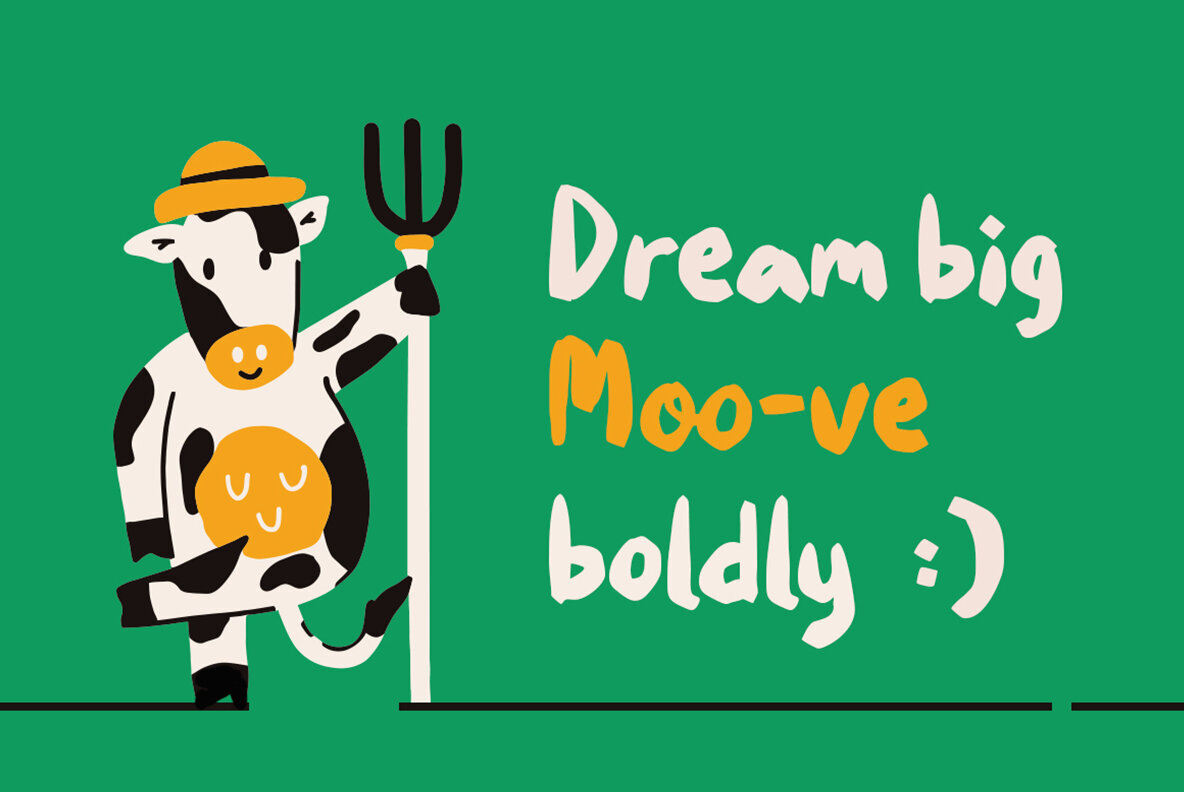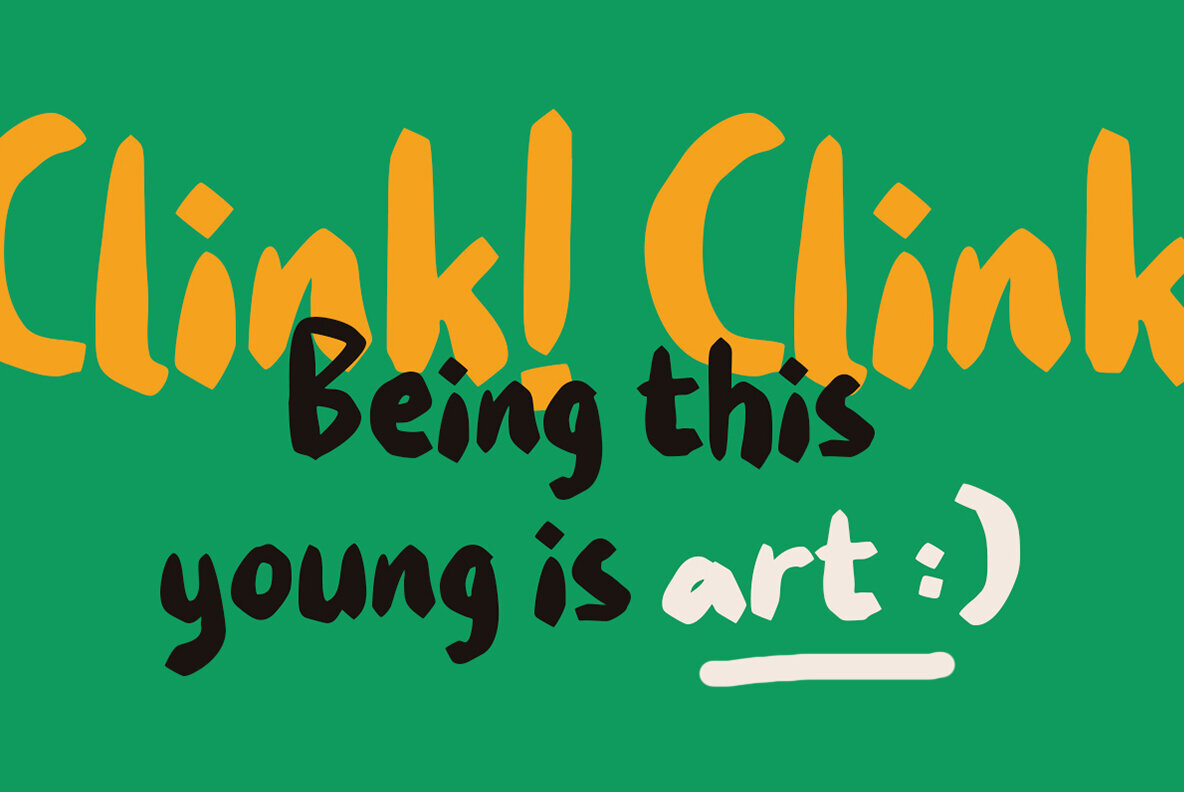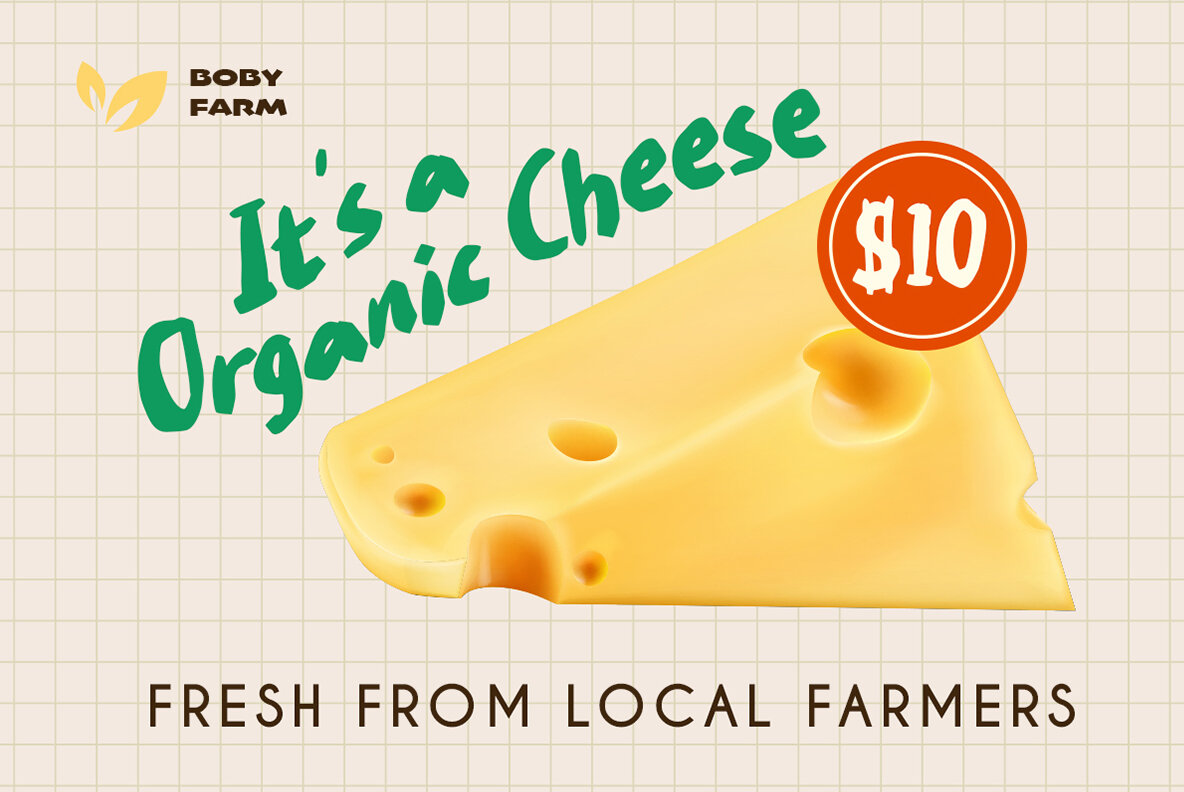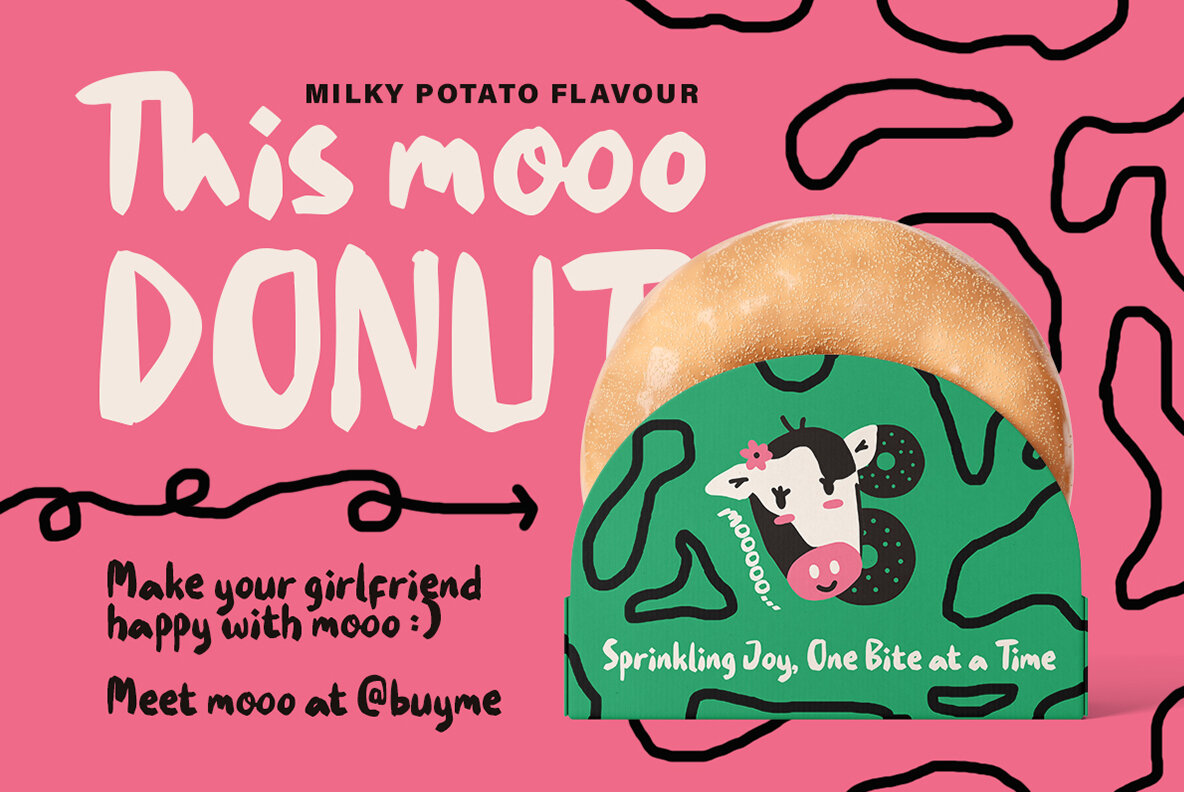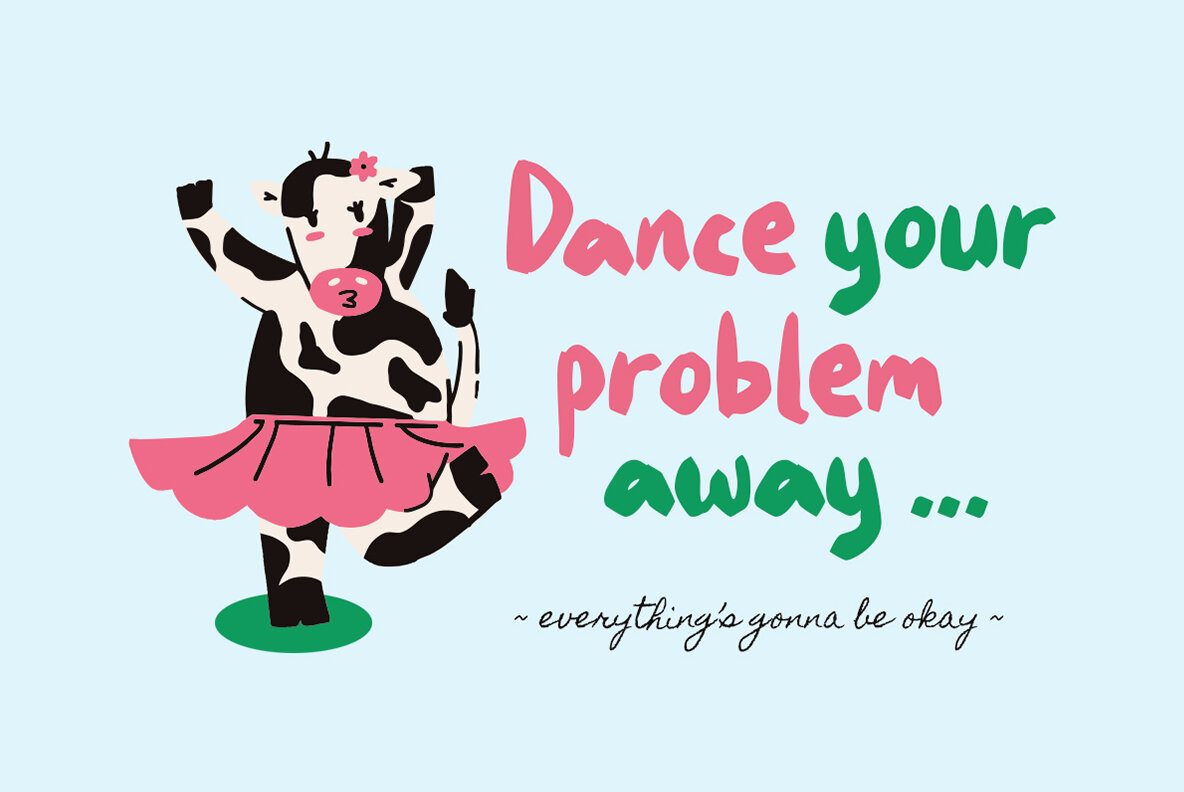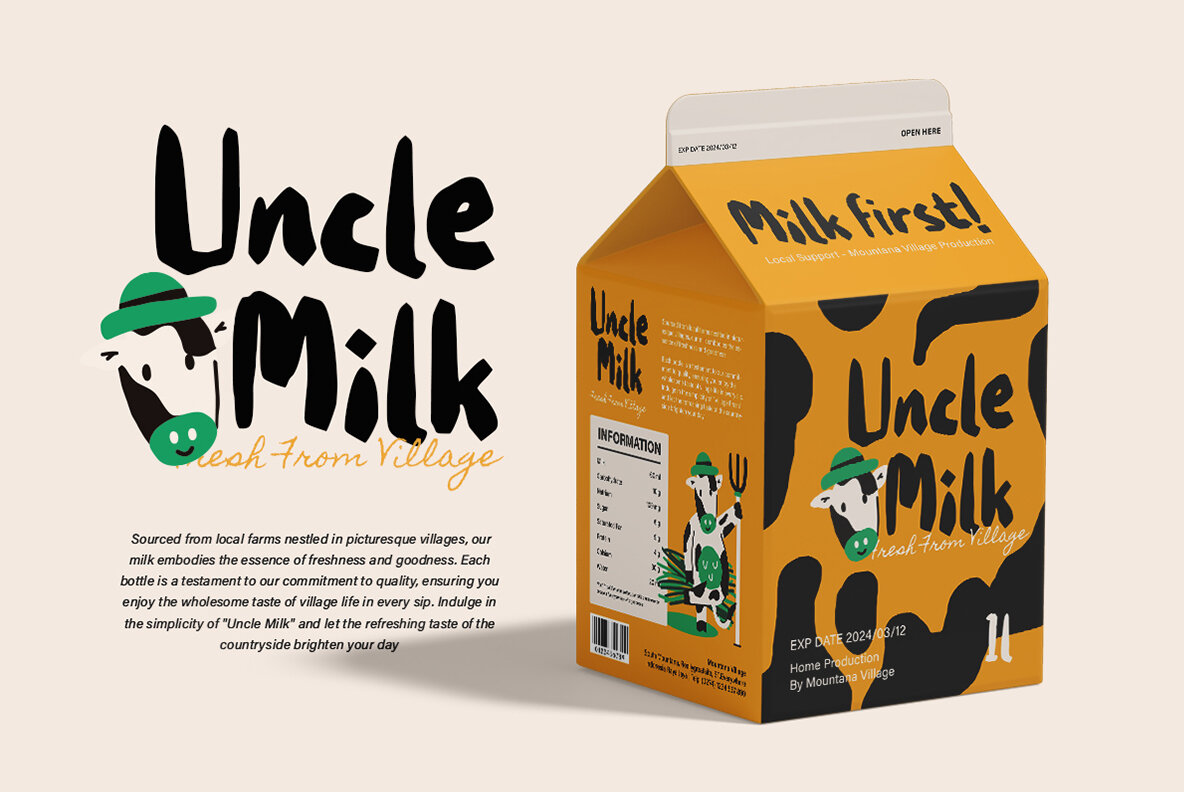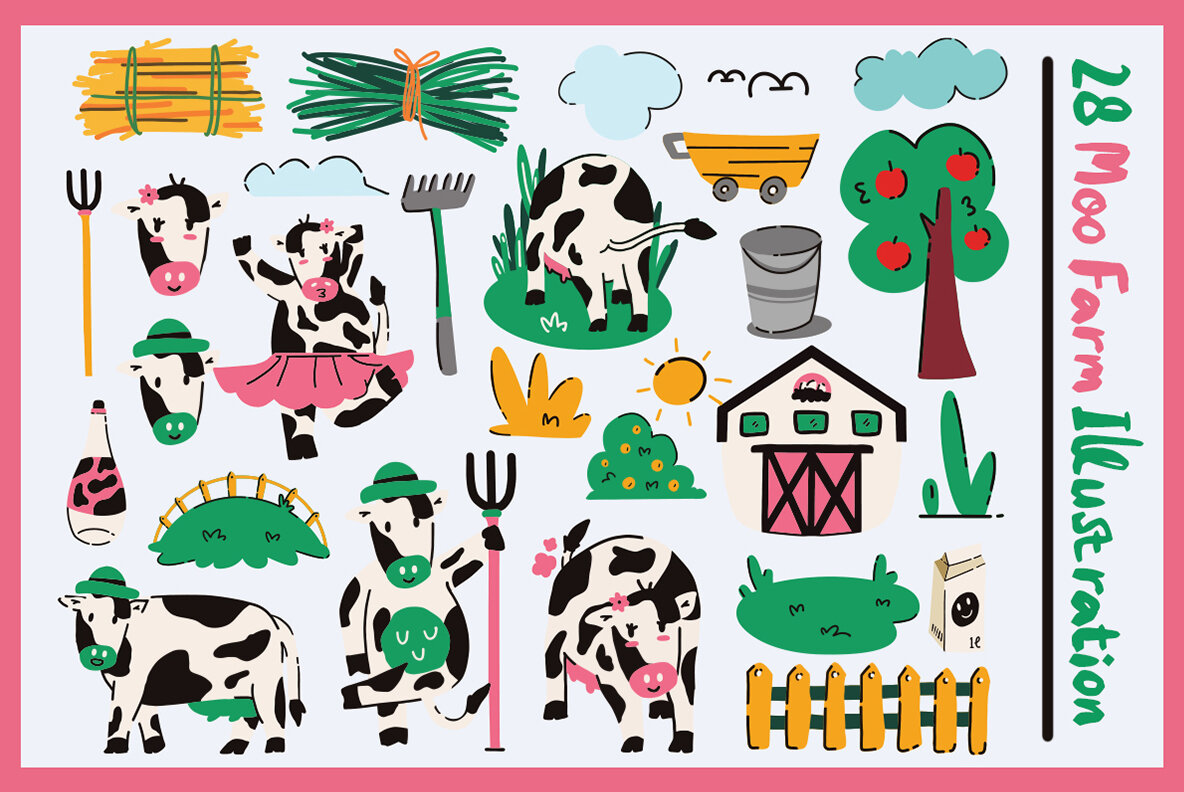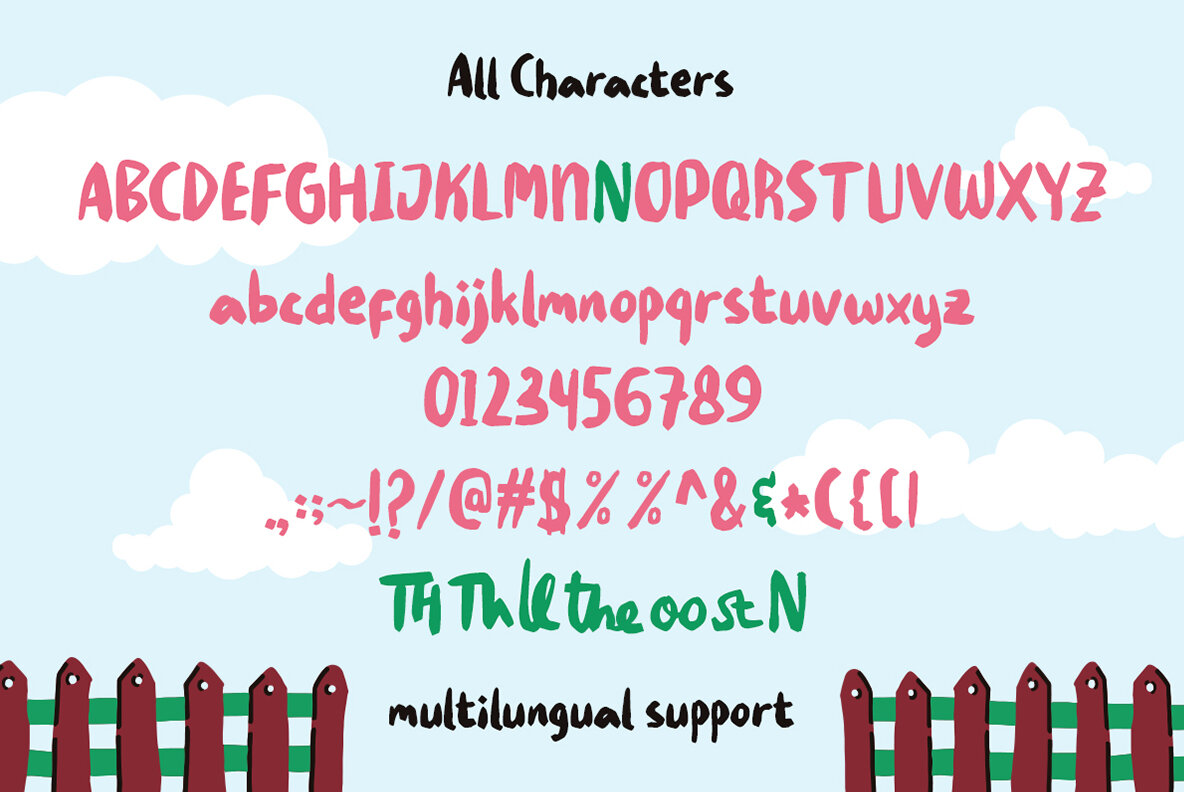
Moo Farm Font
Welcome to Moo Farm, where fun meets affordability! This bold handwriting font features 28 charming hand-drawn illustrations. You'll enjoy a complete set of uppercase and lowercase letters, numbers, punctuation, alternate characters, ligatures, and multilingual support. Everything is PUA encoded for easy access. Ideal for branding, food-themed menus, advertisements, birthday invitations, baby showers, banners, and more.